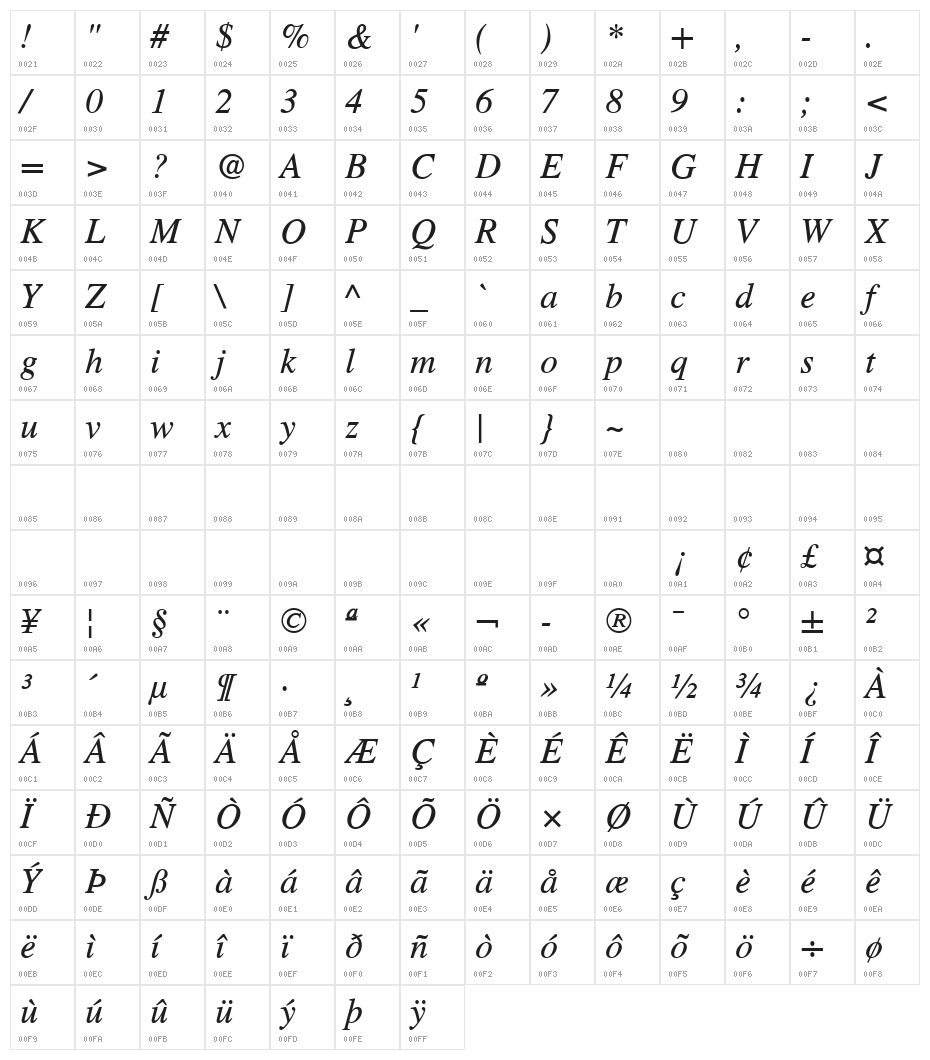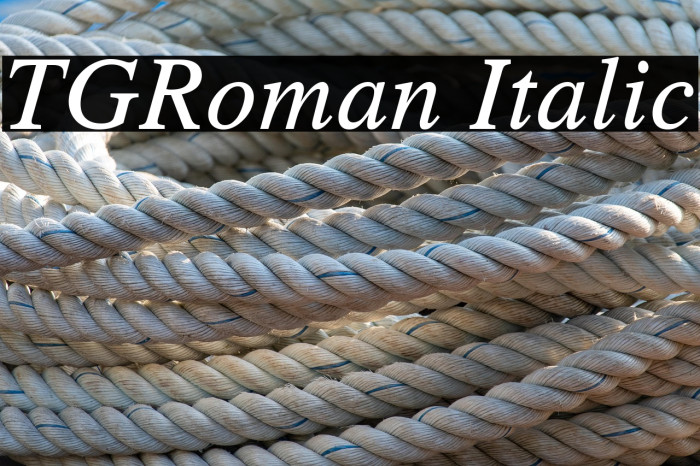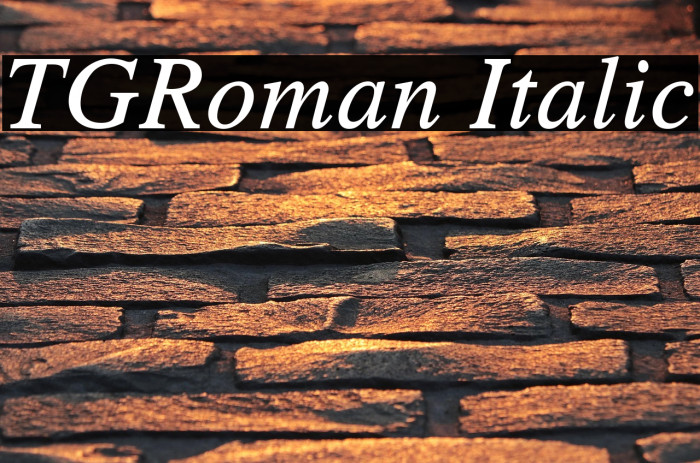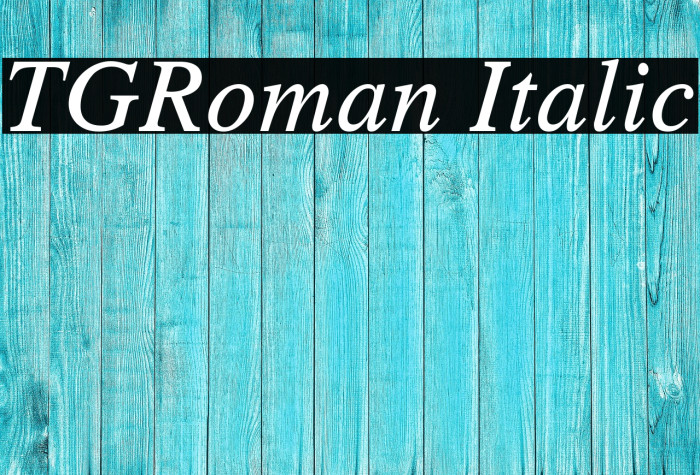
TGRoman Italic Font
TGRoman Italic Description
This font features a classic and elegant italic style, characterized by its smooth and flowing curves. The letters have a slight slant to the right, giving it a dynamic and sophisticated appearance. The serifs are pronounced yet refined, adding a touch of formality and tradition. The uppercase letters are tall and commanding, while the lowercase letters maintain a consistent and harmonious flow. The numerals are clear and balanced, ensuring readability. Special characters are well-integrated, maintaining the overall aesthetic. This font is suitable for projects that require a touch of elegance and tradition.
| Proposed Projects | Ideal for wedding invitations, formal documents, book covers, and luxury branding. |